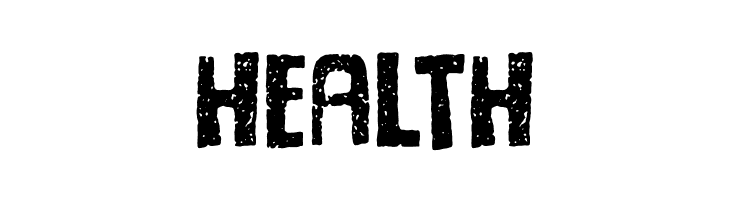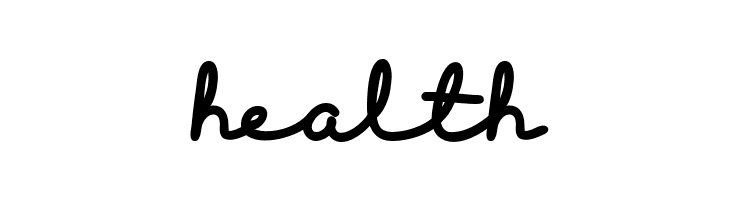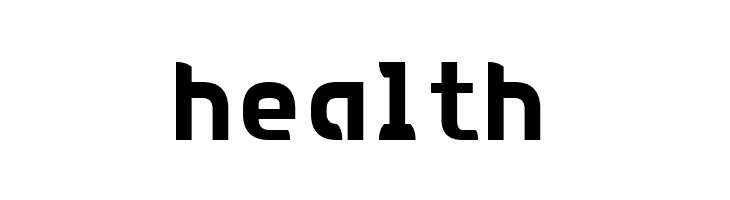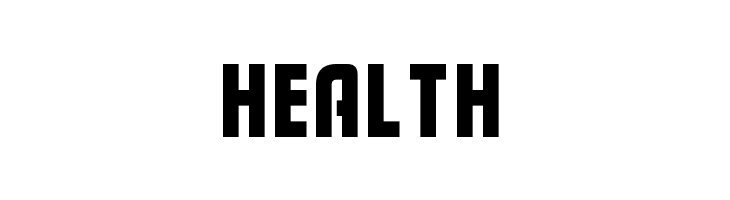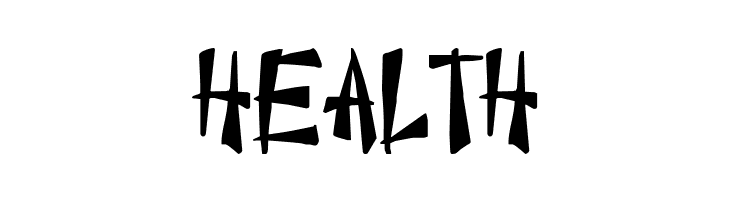
( Fonts by Niccolò Agnoletti )
A playful, casual handwritten font with irregular strokes.
( Fonts by Niccolò Agnoletti )
A playful, informal handwritten font with a lively and dynamic style.
( Fonts by Pizzadude )
A bold, textured font with a rugged, vintage appearance.
( Fonts by Nasir Udin )
A playful, handwritten script font with a smooth, flowing style.
A bold, modern font with geometric influences and strong readability.
A bold, hand-drawn font with a playful and artistic style.
A bold, decorative font with a retro-futuristic style and intricate line work.
A bold, geometric font with modern, rounded edges.
A bold, dynamic font with sharp angles and a hand-drawn, brush-like appearance.